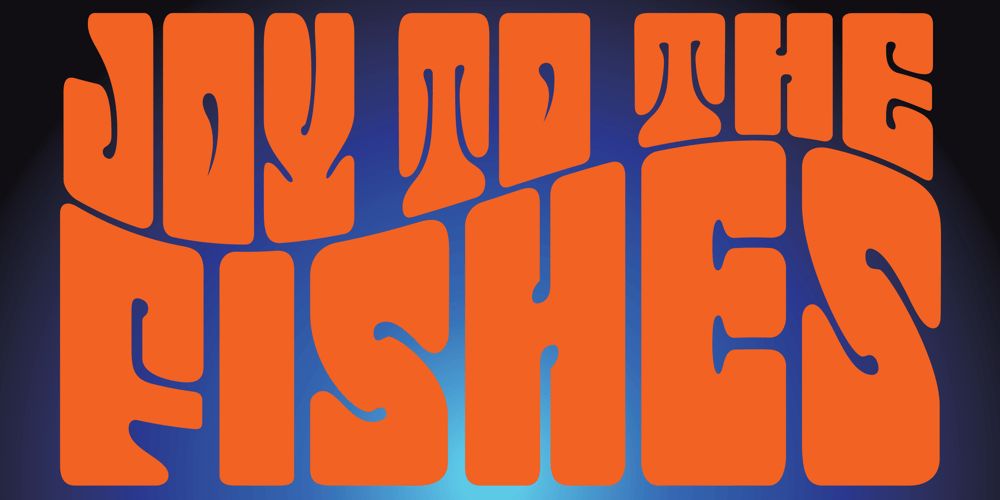
Jonah Font Family was designed by Rebecca Alaccari and published by Canada Type. Jonah contains 2 styles and family package options. Jonah is a digitization of the early 1970s Urban film face from Franklin Photolettering. Though there seemingly is no record left of who the original designer of the font was, it strongly exhibits the unmistakable touch of the late 1960s works of a few popular American designers from that era, like Wes Wilson and Victor Moscoco. Jonah is one of the most popular offerings among our psychedelic/nouveau fonts. It comes in two styles that can be overlaid for multi-colour or chromatic settings. The solid Jonah Black offers organic psychedelia in spades, and the magnetic outline Jonah White offers oodles of snuggly peace and love. Each font comes with over 380 glyphs, support for the majority of Latin languages, and plenty of built-in stylistic alternates. These fonts are best used with Sunshine Superman or White Rabbit playing in the background.